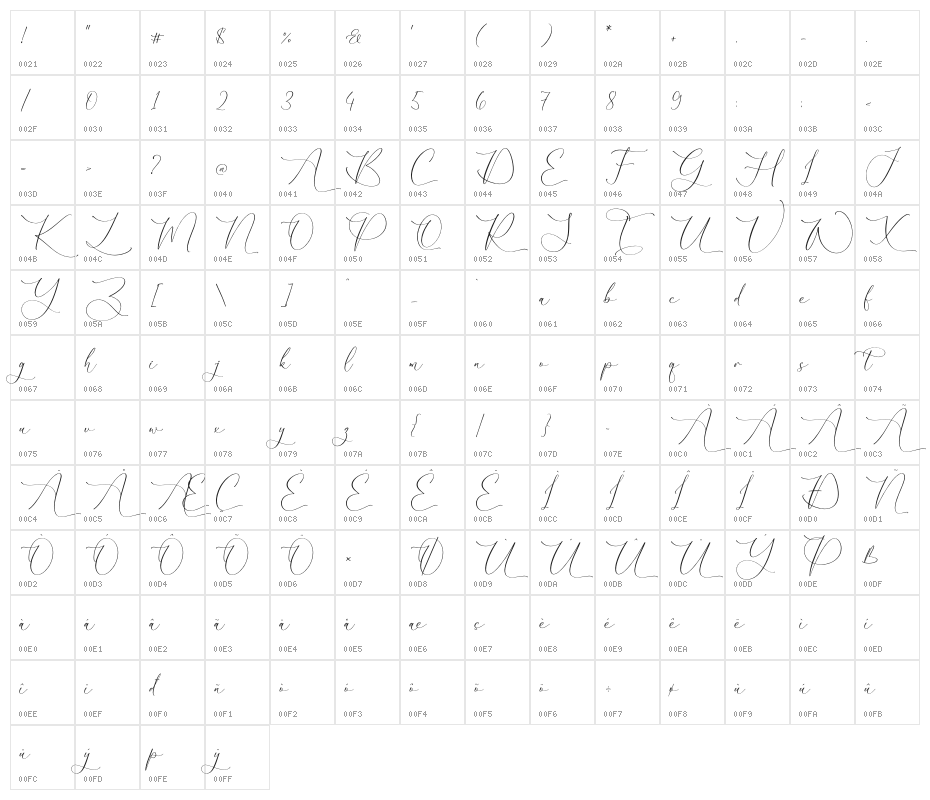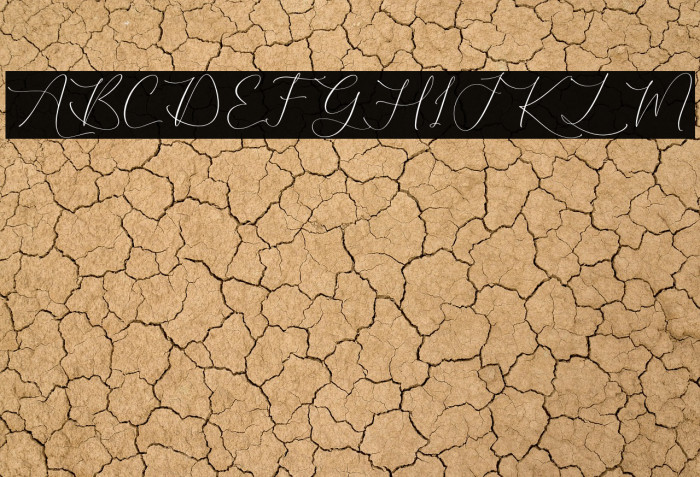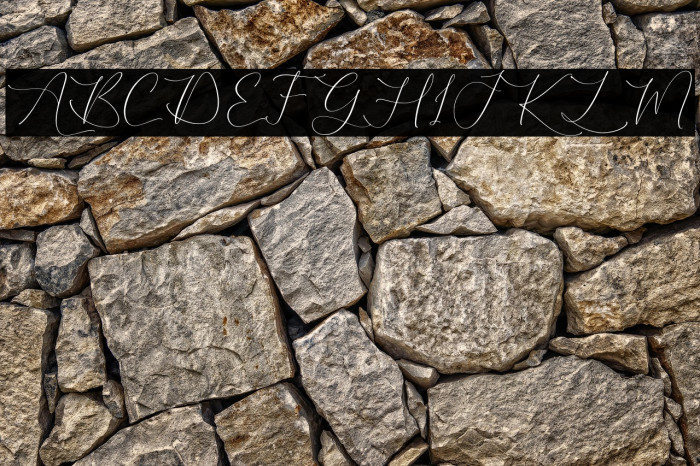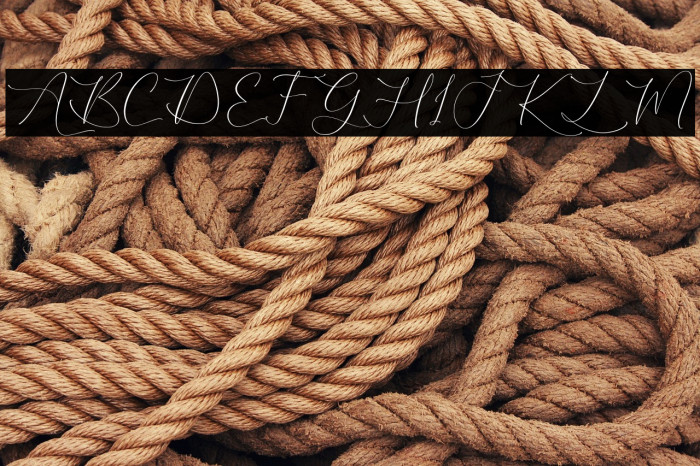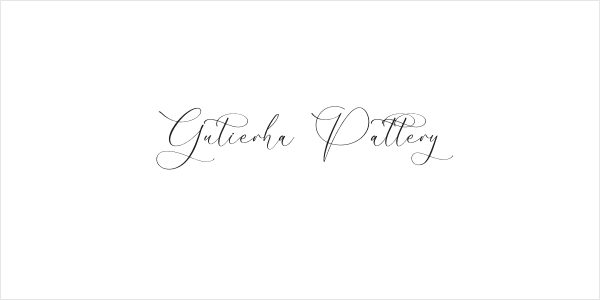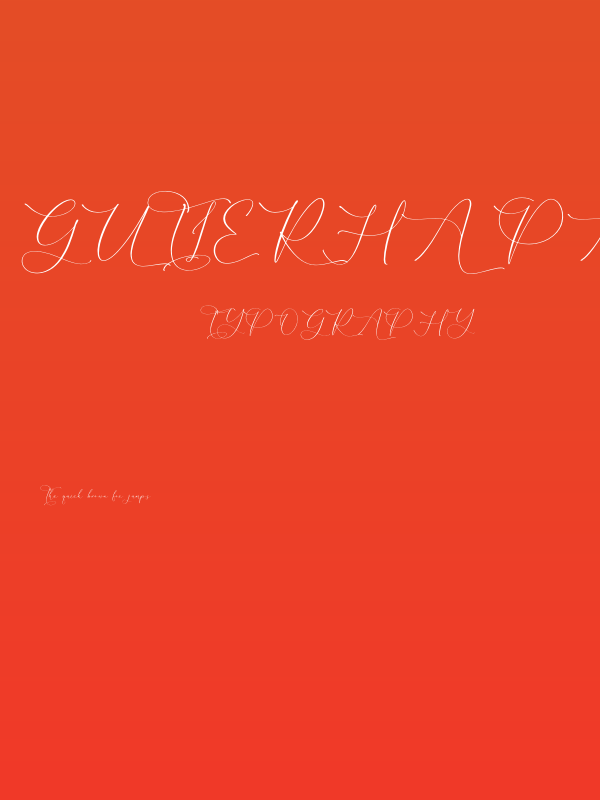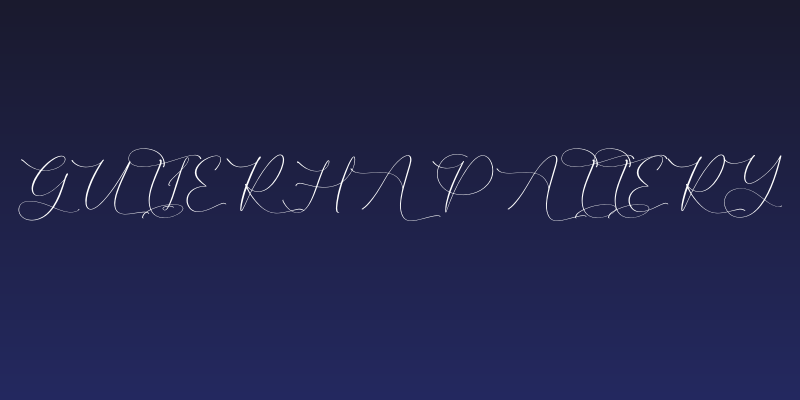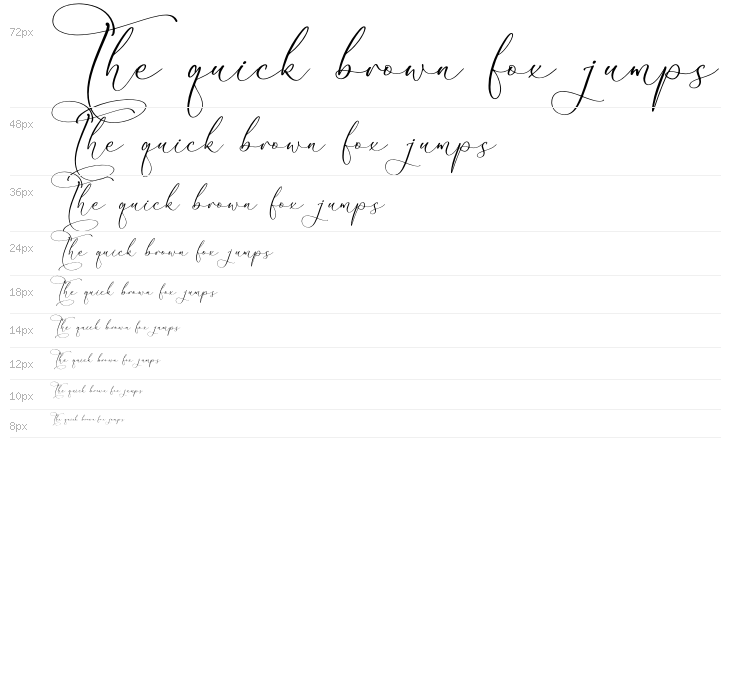
Gutierha Pattery Font
Gutierha Pattery Description
This elegant script font exudes a sense of sophistication and fluidity, characterized by its graceful, flowing lines and intricate loops. The uppercase letters are particularly ornate, with sweeping curves that add a touch of grandeur. The lowercase letters maintain a consistent style, with delicate connections between characters that enhance readability while preserving the font's decorative nature. The numerals are equally stylish, complementing the overall aesthetic. Special characters are thoughtfully designed, maintaining the font's cohesive look. This font is ideal for projects that require a touch of elegance and refinement.
| Proposed Projects | Wedding invitations, luxury branding, elegant stationery, and high-end product packaging. |